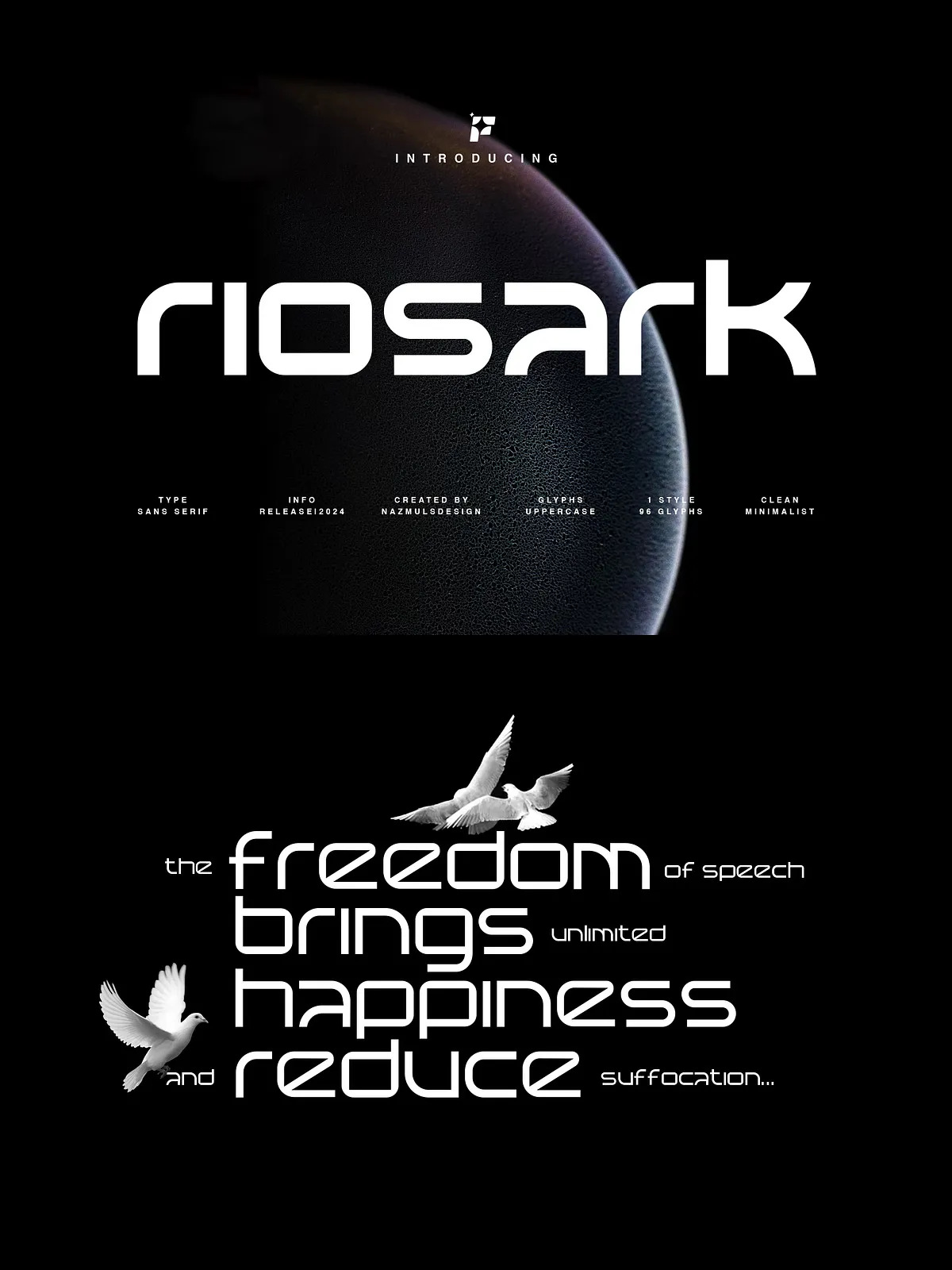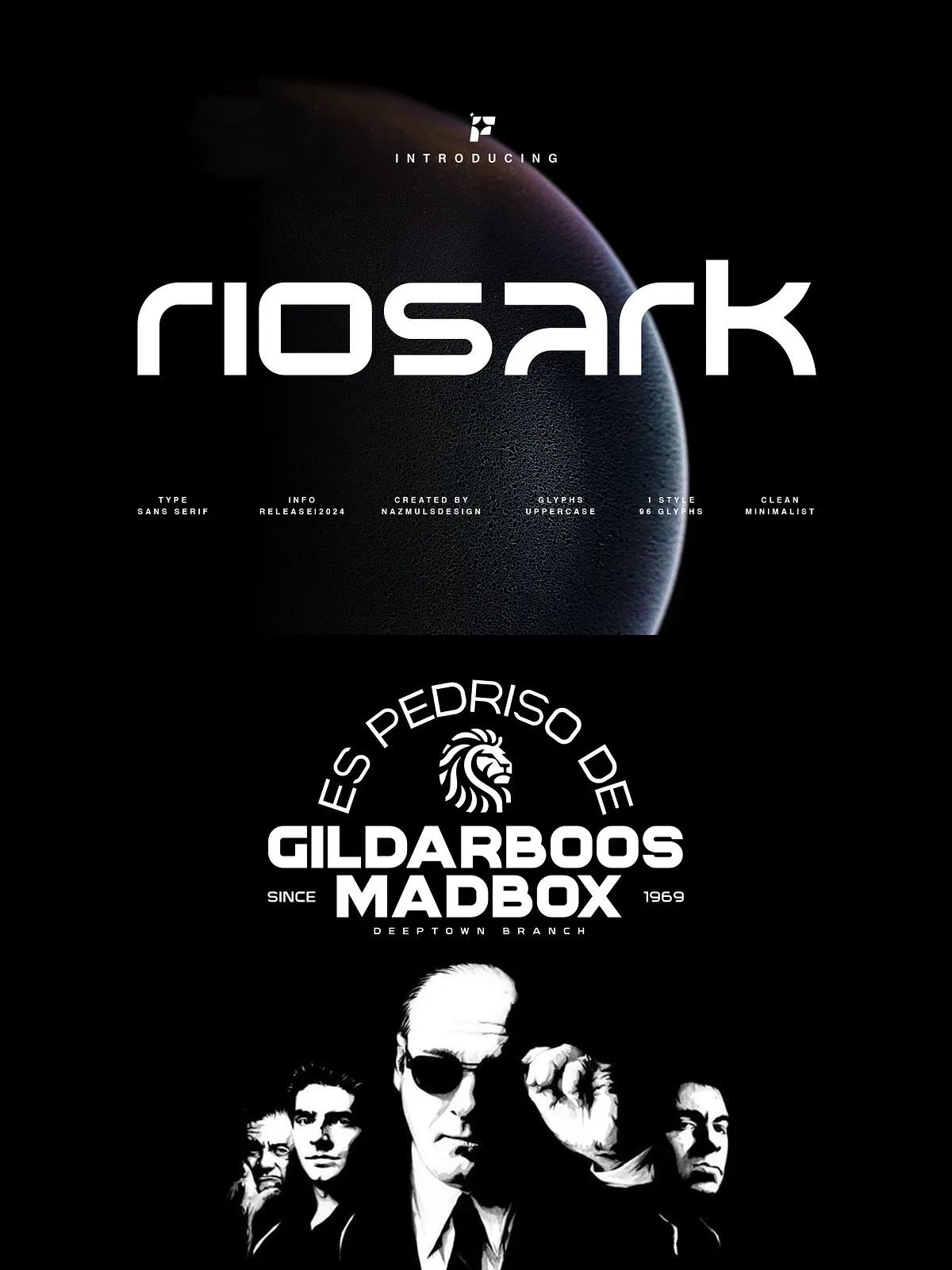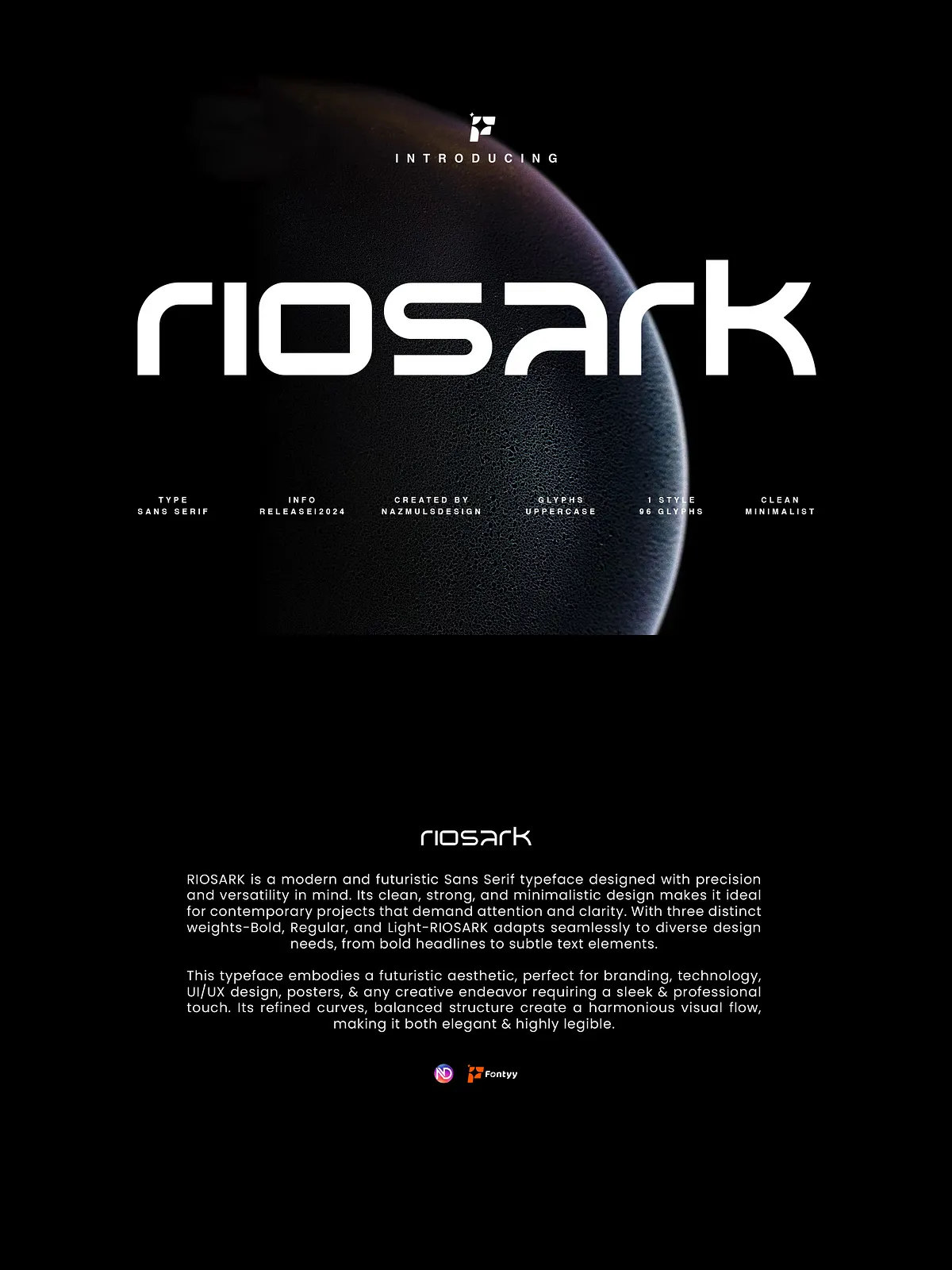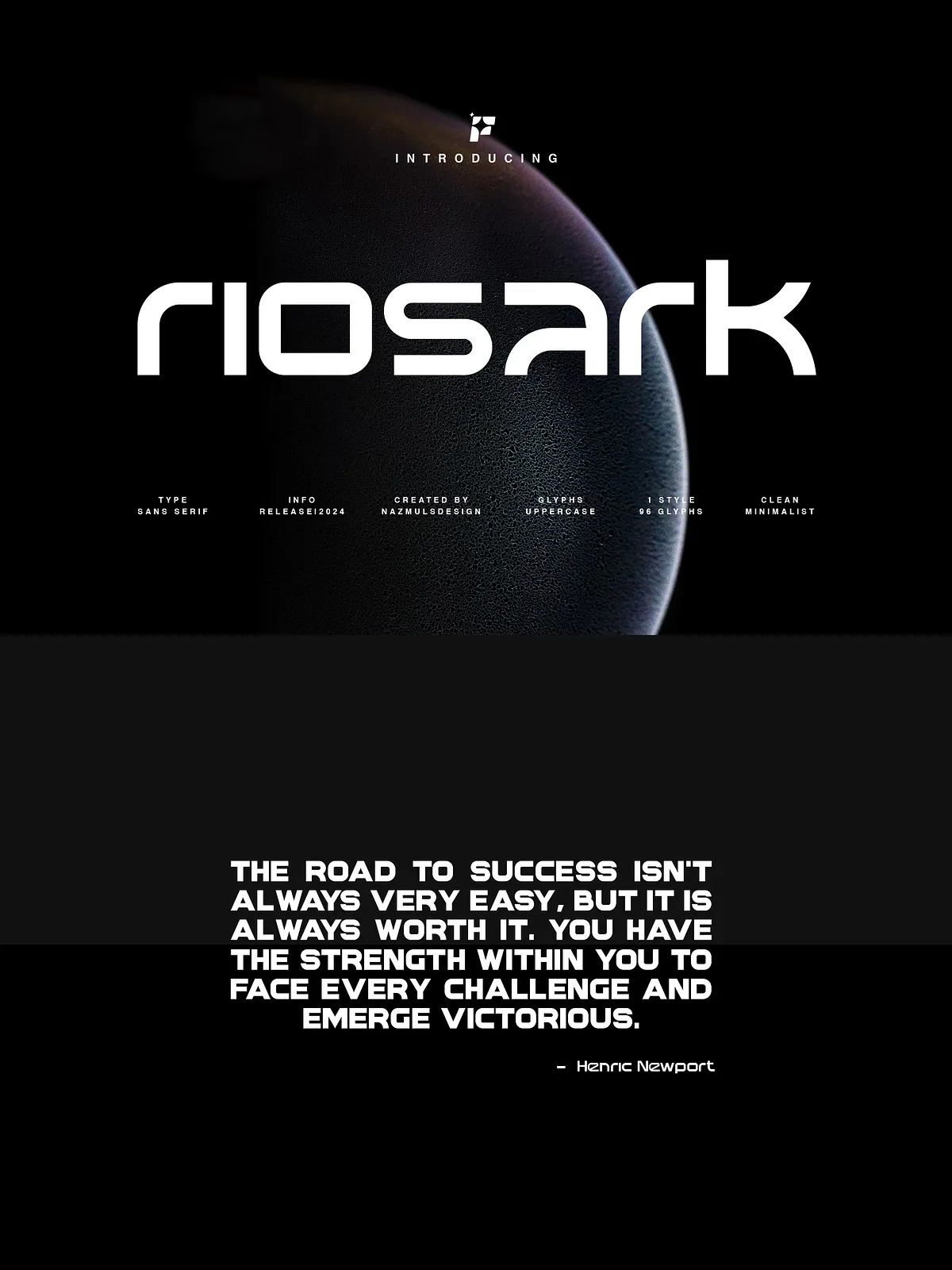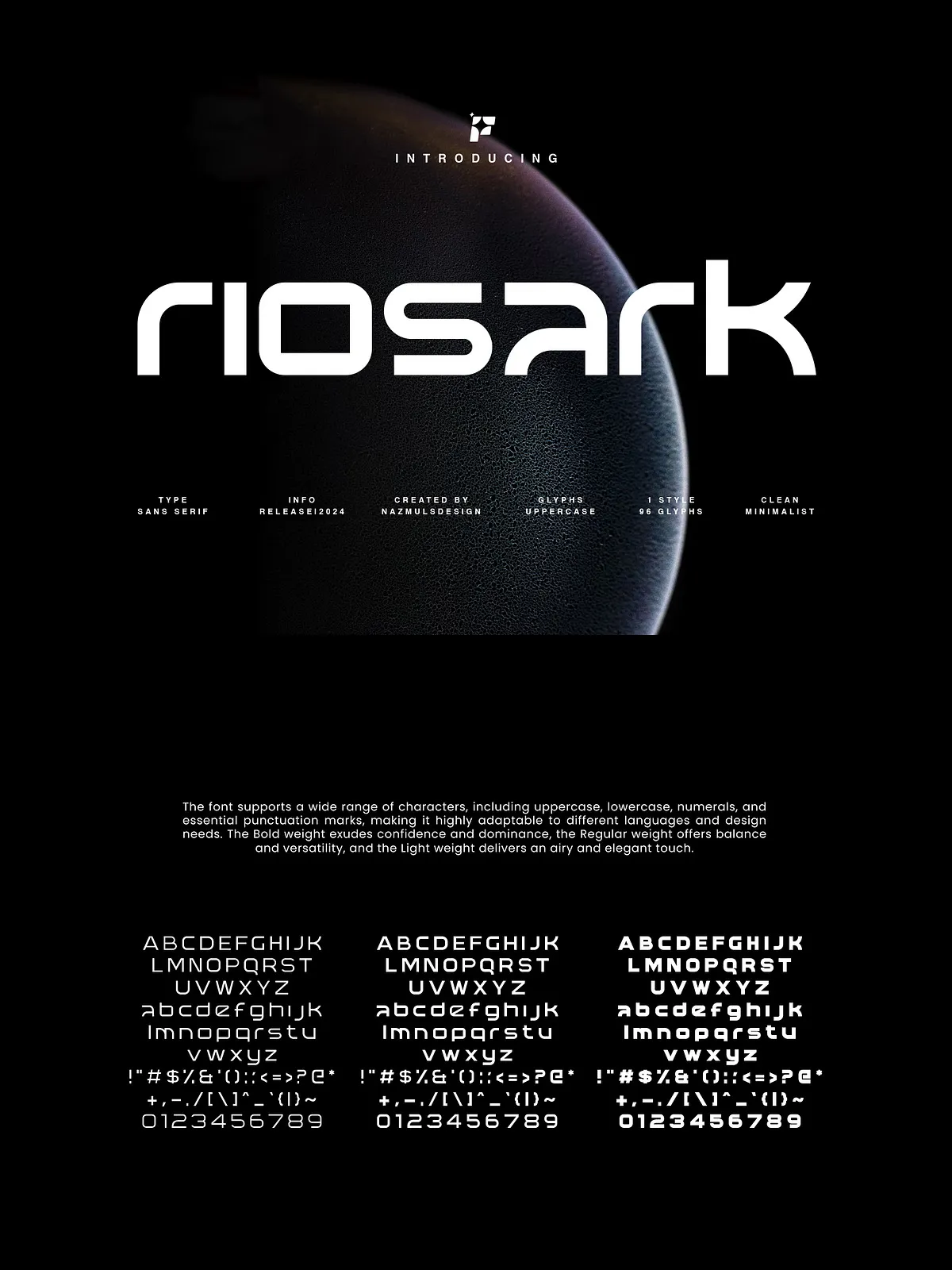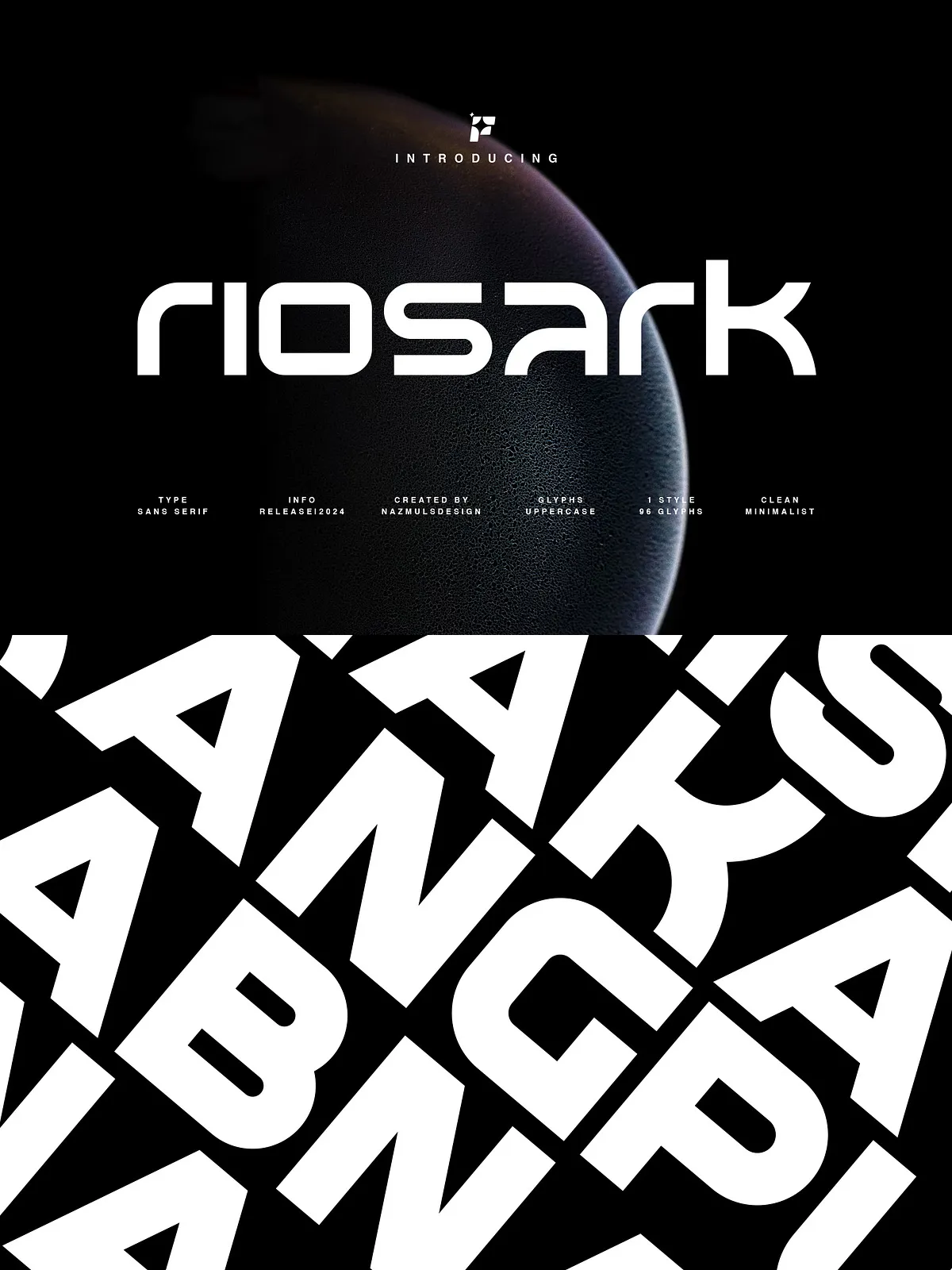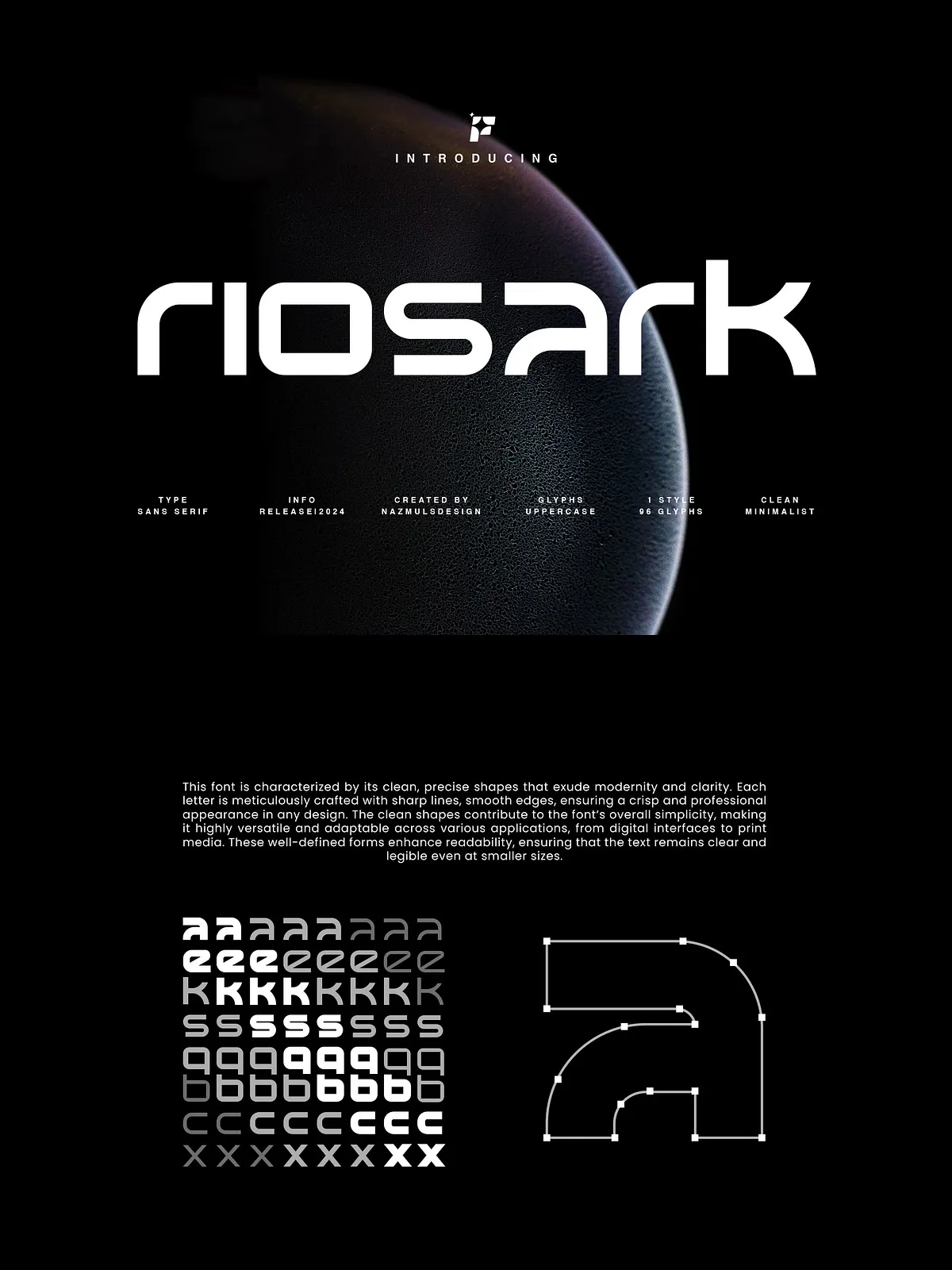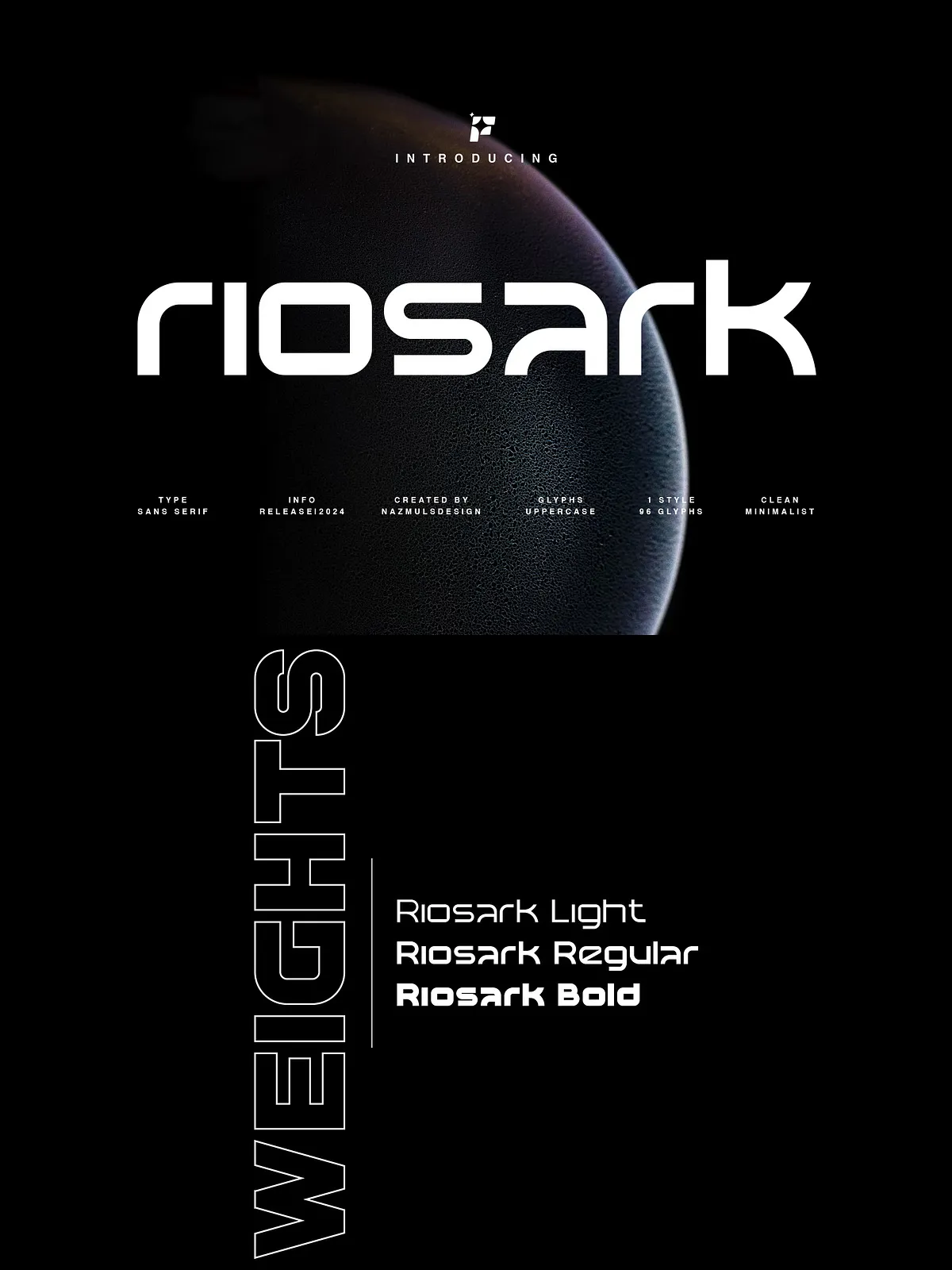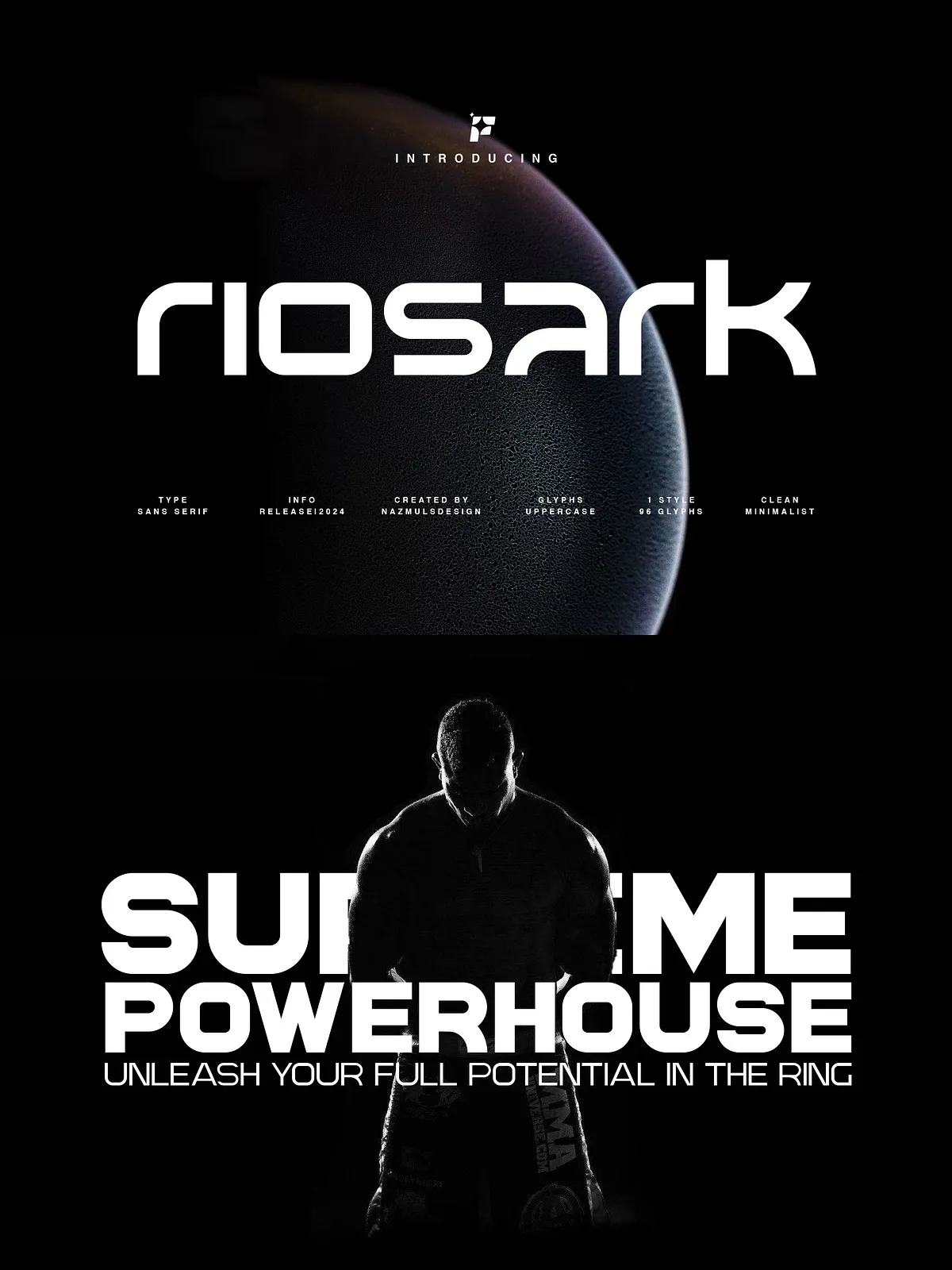
Riosark | Sans Serif Typeface
Step into the future of typography with RIOSARK, a bold, precision-engineered sans-serif typeface designed for creators who demand modernity, functionality, and visual strength. This isn’t just another font—it’s a dynamic tool built for a world that values speed, simplicity, and aesthetic confidence. With three distinct weights—Bold, Regular, and Light—RIOSARK adapts effortlessly across digital and print applications, delivering powerful expression with every stroke.
Why RIOSARK is a Game-Changer in Contemporary Design
In an age where visual clutter dominates, RIOSARK cuts through with clean, intentional lines and balanced proportions. Its minimalist structure doesn’t sacrifice character—it amplifies it. Each glyph has been engineered for maximum legibility at small sizes and commanding presence at large scales. Whether you’re building a tech startup’s brand identity, crafting a sleek app interface, or designing a high-impact poster, RIOSARK gives you the clarity and strength to stand out.
Three Weights, Infinite Possibilities
RIOSARK’s versatility lies in its three carefully crafted weights:
• Light: For elegant subheadings, minimalist layouts, or subtle accents where refinement is key.
• Regular: The ideal workhorse—perfect for body text, navigation menus, and balanced composition across web and print.
• Bold: Command attention. Use in headlines, logos, banners, and branding to make a powerful statement.
These weights don’t just vary in thickness—they vary in tone. The Light weight whispers sophistication, Regular speaks with authority, and Bold declares confidence. Together, they form a cohesive typographic family built for professional workflows.
Engineered for Modern Design Challenges
RIOSARK wasn’t just visually designed—it was functionally optimized. The typeface features:
1. Perfect Visual Harmony & Balanced Proportions
Every letterform is calibrated for visual symmetry and rhythm. The consistent stroke width, even spacing, and precisely tuned curves ensure even text flow, reducing eye strain and increasing readability across platforms and devices.
2. Exceptional Legibility at All Sizes
From mobile app icons to massive wall murals, RIOSARK maintains sharp definition and clear distinction between letters—even at tiny sizes. This makes it ideal for digital screens, responsive websites, and dynamic UI/UX environments.
3. Full Character Set & Language Support
Supports extensive Latin character sets, including diacritics for European, Asian, and Middle Eastern languages. Punctuation, numerals, special symbols, and currency signs are all included, ensuring full compatibility across international projects.
See the Power of RIOSARK in Action
Where RIOSARK Thrives: Top Use Cases
Designed for creators who value precision and futurism, RIOSARK is ideal for:
• Technology startups and SaaS platform branding
• UI/UX design for apps, websites, and dashboards
• Corporate presentations, executive reports, and pitch decks
• Product packaging and high-end print marketing
• Event promotions, exhibition banners, and digital signage
• Minimalist digital art and motion graphics
Final Vision: A Typeface That Moves With the Future
RIOSARK is more than a tool—it’s a mindset. It represents the future of design: intentional, efficient, and bold. It asks less of your audience and gives more to your vision. Whether you’re crafting an experience or communicating a message, RIOSARK ensures that clarity leads with style.